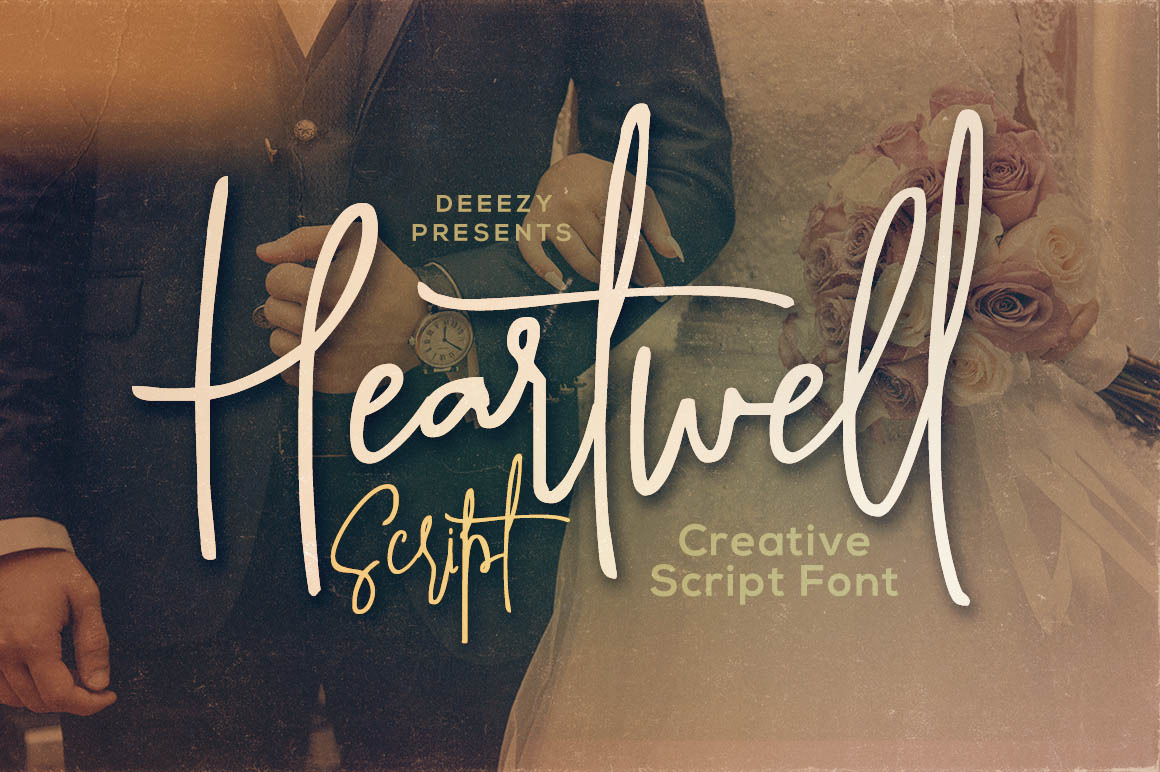
Heartwell Script Font
Crazy dancing baseline and handwritten style script font for your new projects. With multi language support and lot of stylistic alternates & swashes. Enjoy ;)